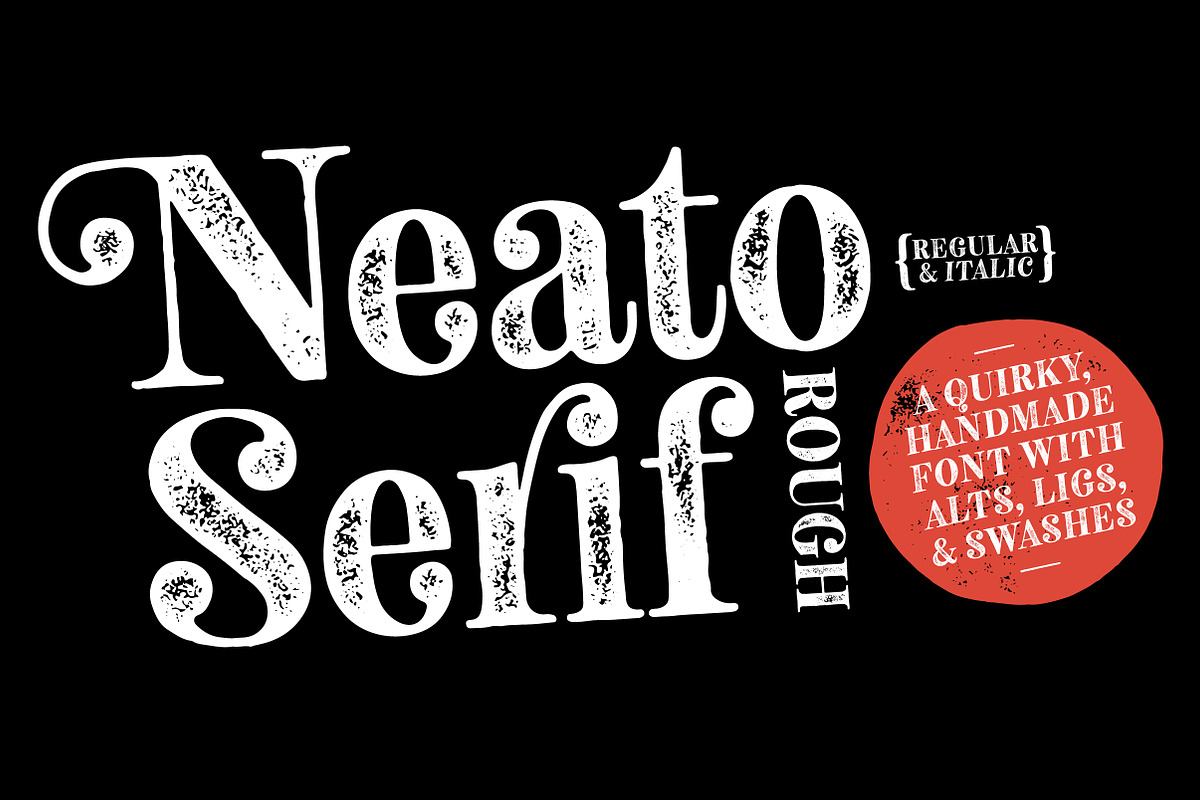
Neato Serif Rough Font Free Download is a vintage-inspired serif typeface with a textured, hand-crafted look that adds charm and authenticity to your designs. Featuring worn edges and a slightly rugged feel, this font is ideal for retro branding, poster design, packaging, apparel, and anything that needs a touch of nostalgia with a modern twist.
The rough detailing gives Neato Serif Rough Font Free Download a warm, tactile personality, making it stand out in both digital and print formats. It works beautifully for bold headlines, logotypes, and vintage-themed graphics, delivering character without sacrificing readability.